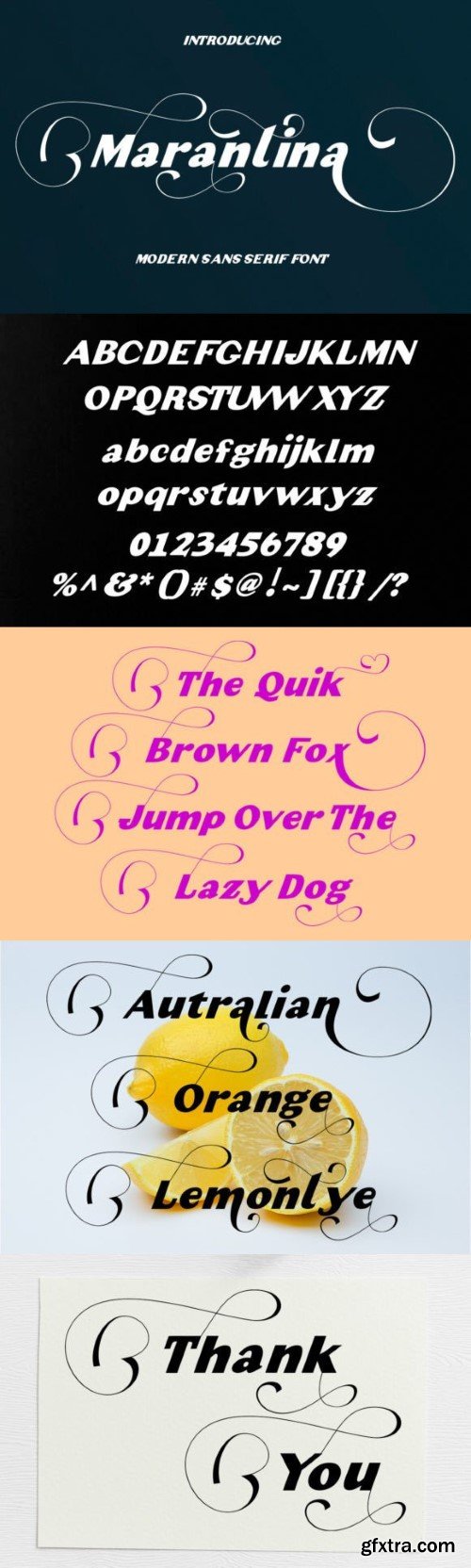
马兰蒂娜字体
Marantina is a typeface that is smooth, clean, unique, elegant, modern, feminine, sensual, glamorous, simple, and very easy to read. Classic style is very suitable to be applied in various formal forms such as invitations, labels, menus, logos, fashion, makeup, stationery, letterpress, romantic novels, magazines, books, greeting/wedding cards, packaging, and labels.